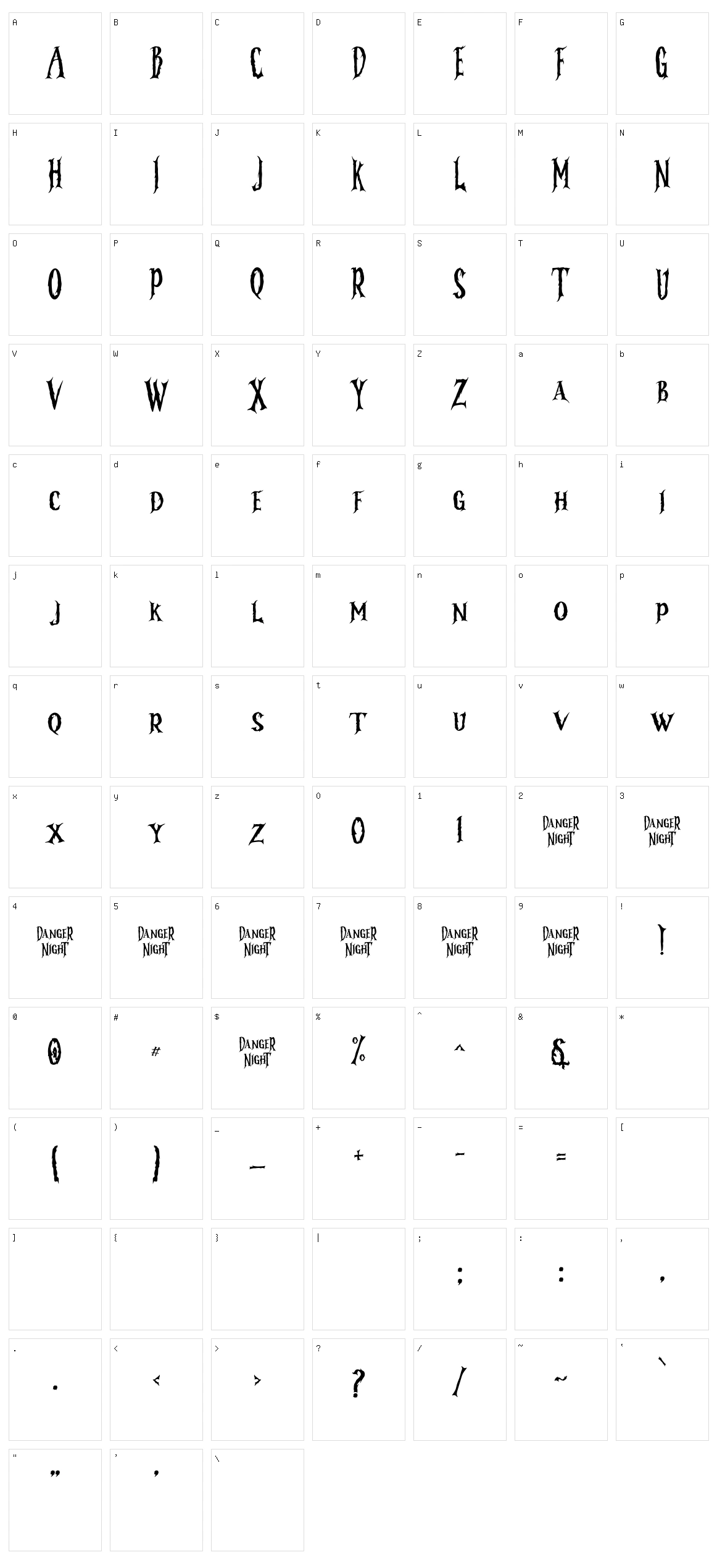
The free font Danger Night is carefully designed by Absonstype Studio, showcasing a thoughtful balance of creativity and usability and falls under the Halloween font style. When you download the ZIP file, it contains only 993.62 KB of font files, making it lightweight and quick to download. Please review the license details below to understand permitted usage and distribution rights. If license information is not available, we recommend using this font for personal projects only or contacting the author directly for commercial usage permissions.